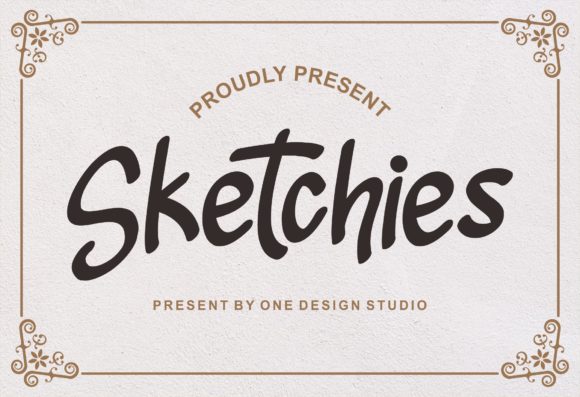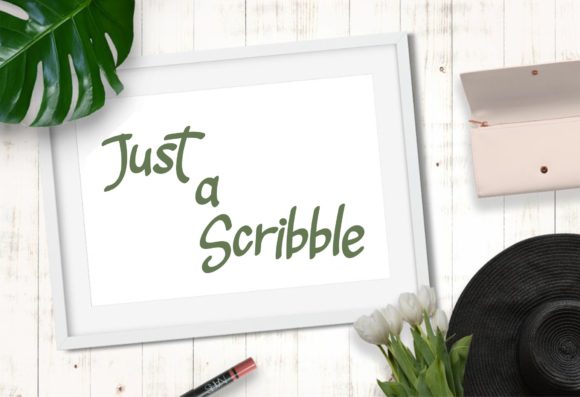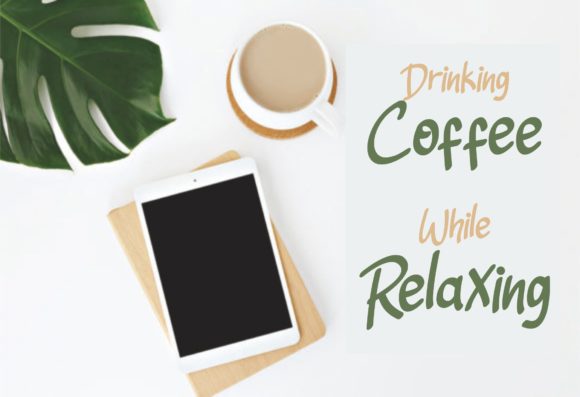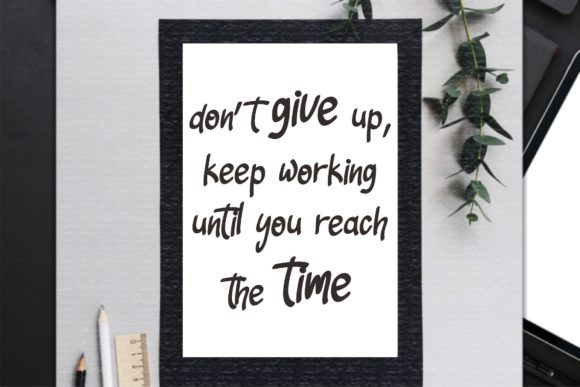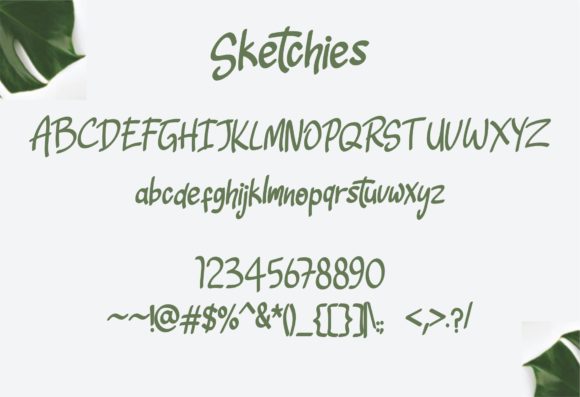
Sketchies Font
About Sketchies Font
Sketchies is a modern handwritten font, defined by a playful vibe. Add this casual and trendy font to your creative ideas and make them stand out!